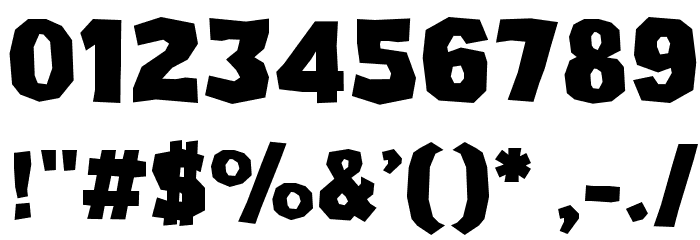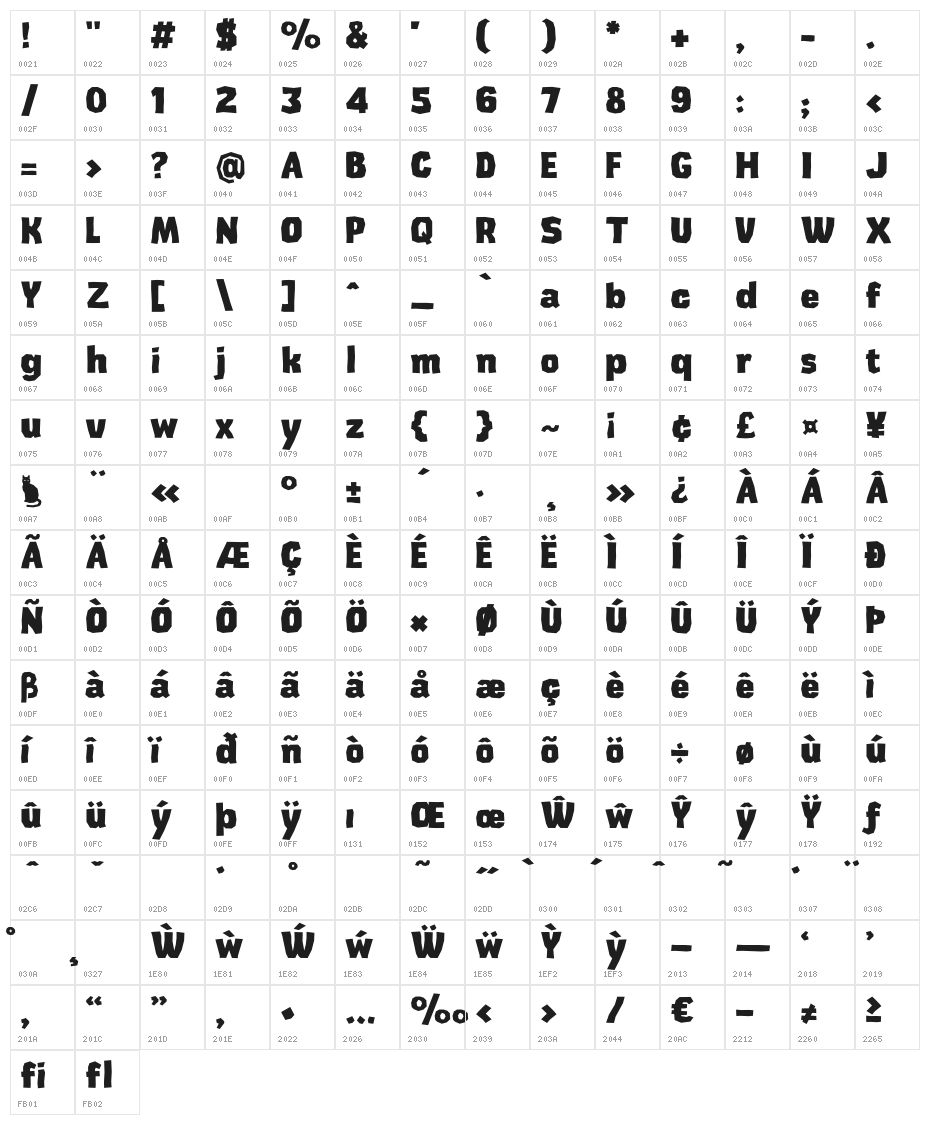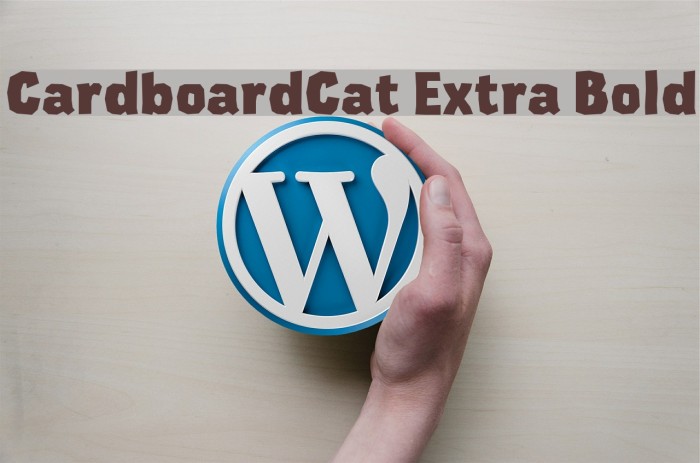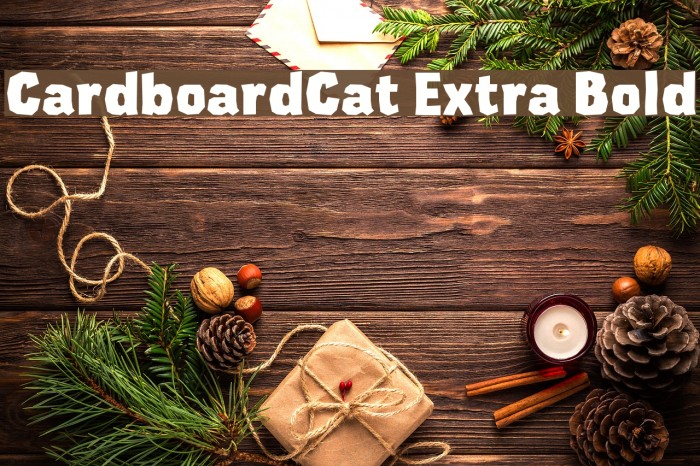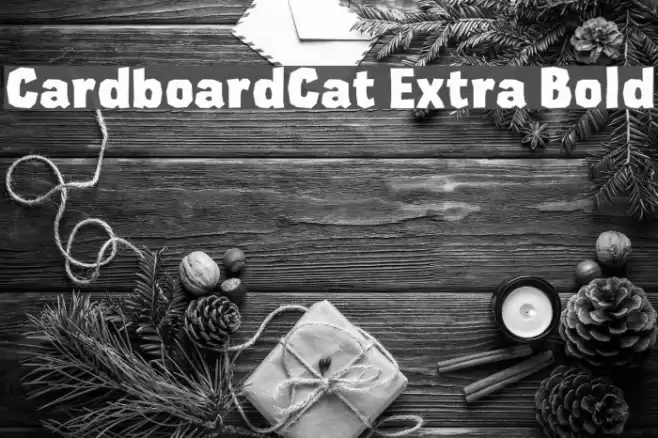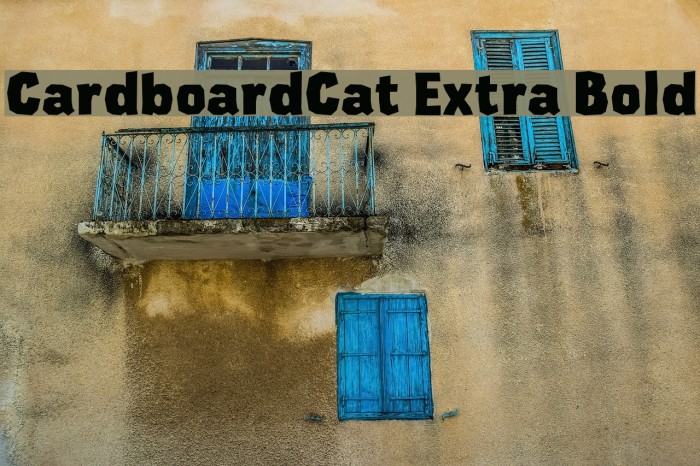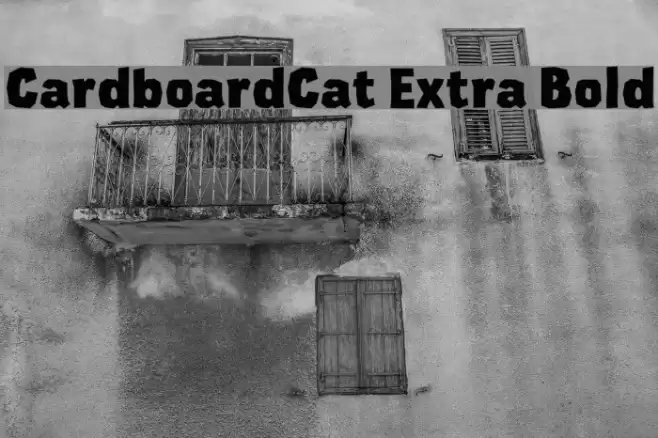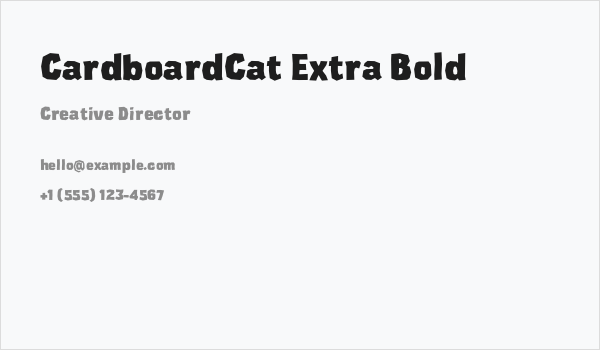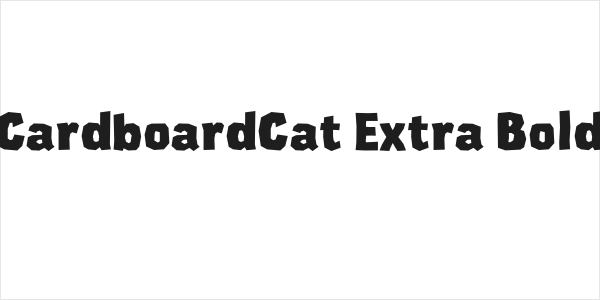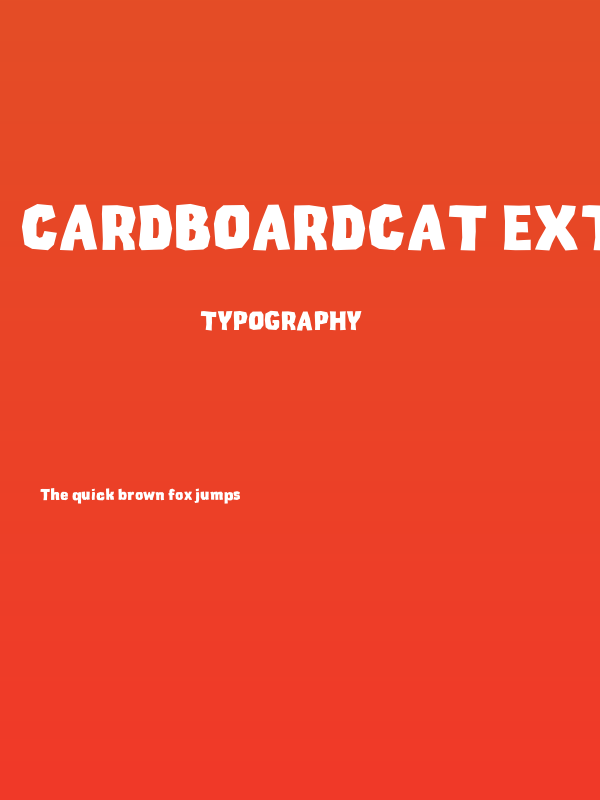
CardboardCat Extra Bold Font
CardboardCat Extra Bold Description
This font features a bold and playful design with a distinctly hand-cut appearance, reminiscent of letters crafted from cardboard. The characters are irregular and chunky, giving them a whimsical and informal feel. Each letter has a unique shape, contributing to the font's dynamic and lively aesthetic. The uppercase and lowercase letters maintain a consistent style, with exaggerated curves and angles that enhance the overall quirky look. Numbers and special characters follow the same design principles, ensuring uniformity across all glyphs. This font is ideal for projects that require a fun and eye-catching typeface.
| Proposed Projects | Ideal for children's books, playful branding, posters, and creative projects that require a fun and informal touch. |